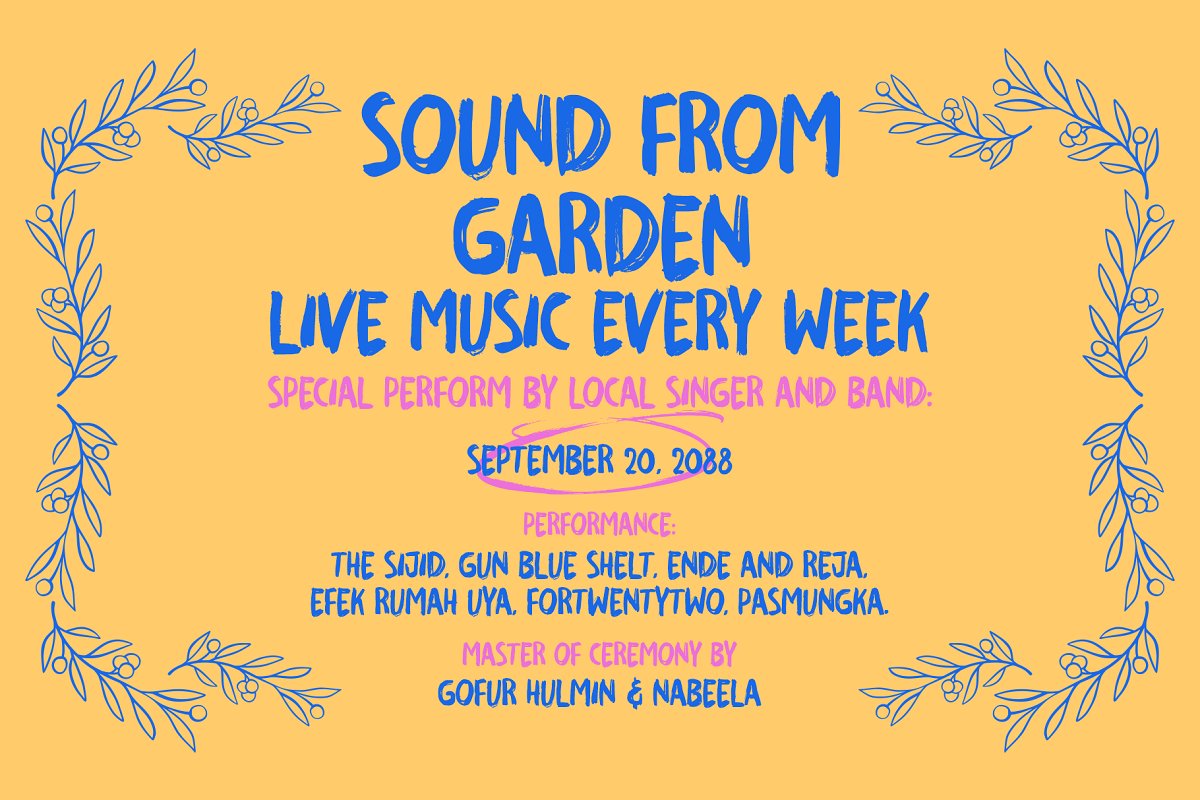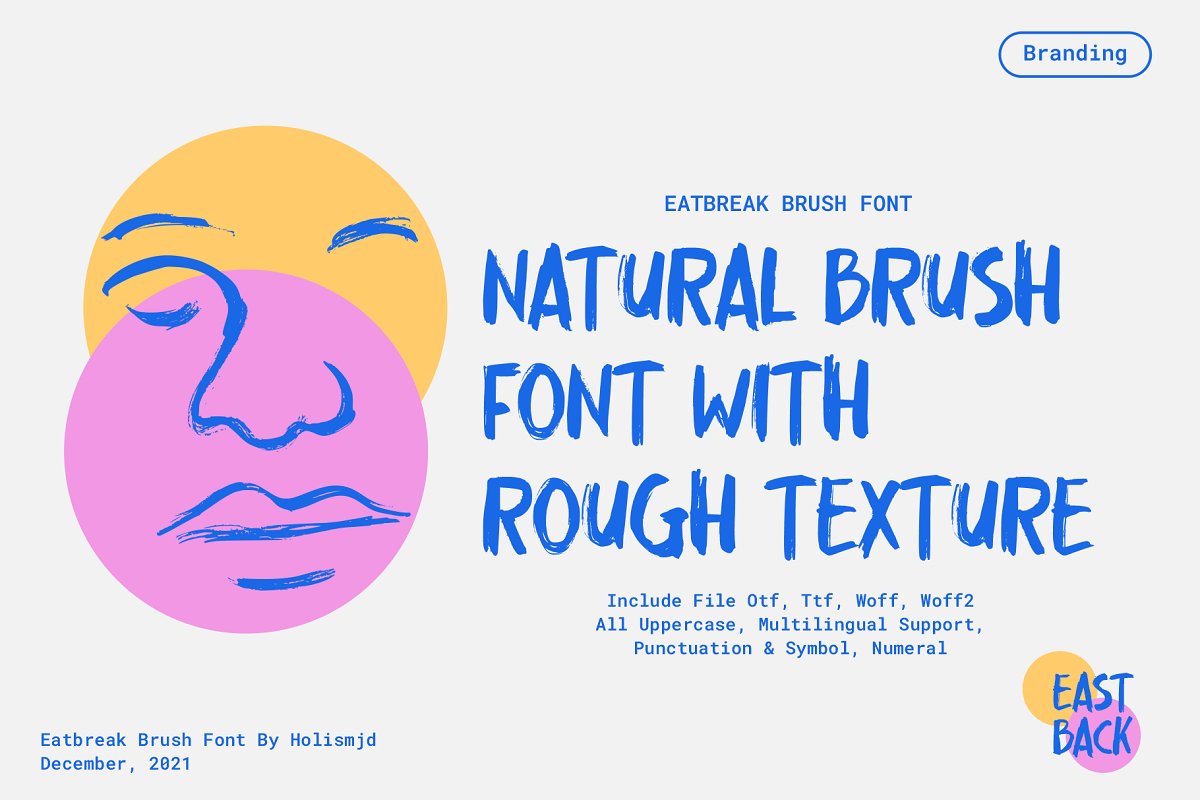
About the Eatbreak Brush Font
Experimental hand-lettered brush typeface, Suitable for logo fonts, poster designs, illustrations, branding, and others, Files:Eatbreak OTF, TTF, WOFFFeatures:All UppercaseNumeralPunctuationSymbolMultilingual Support ÆŒÀÁĂÂÄĄÅÃĀǼĆČÇĈĊĎÐÈÉĔĚÊËĖĒĘĞĜĢĠĤĦÌÍĬÎÏİĮĪĨĴĶĹĽĻĿŁŃŇŅÑÒÓŎÔÖŐØǾÕŌŔŘŖ ŚŠŞŜȘŤŢŦÙÚŬÛÜŰŲŮŪŨẀẂŴẄỲÝŶŸŹŽŻ